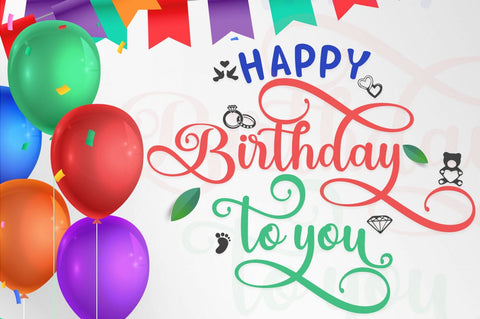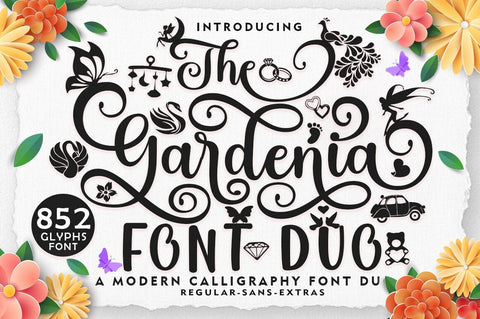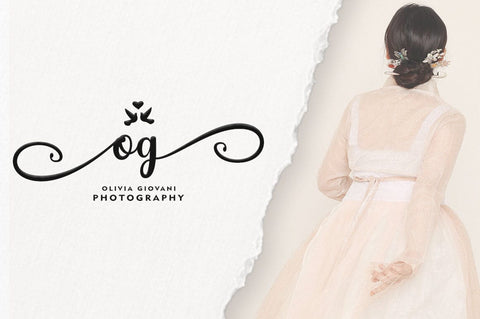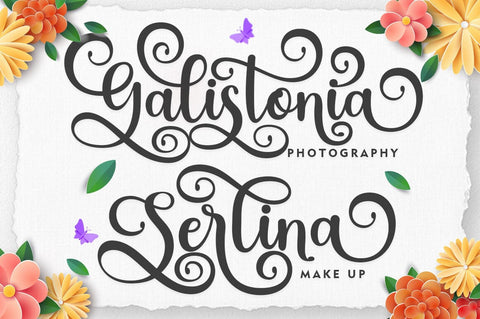
The Gardenia Font Duo
The Gardenia Font Duo in a beautiful handwritten style with a touch of love style. Packed with 852 glyphs Andesta is perfect for branding projects, home appliance design, product packaging, use in business cards, invitation cards, etc. Simply as a stylish text overlay onto a background image or anything else that needs a touch of elegance.